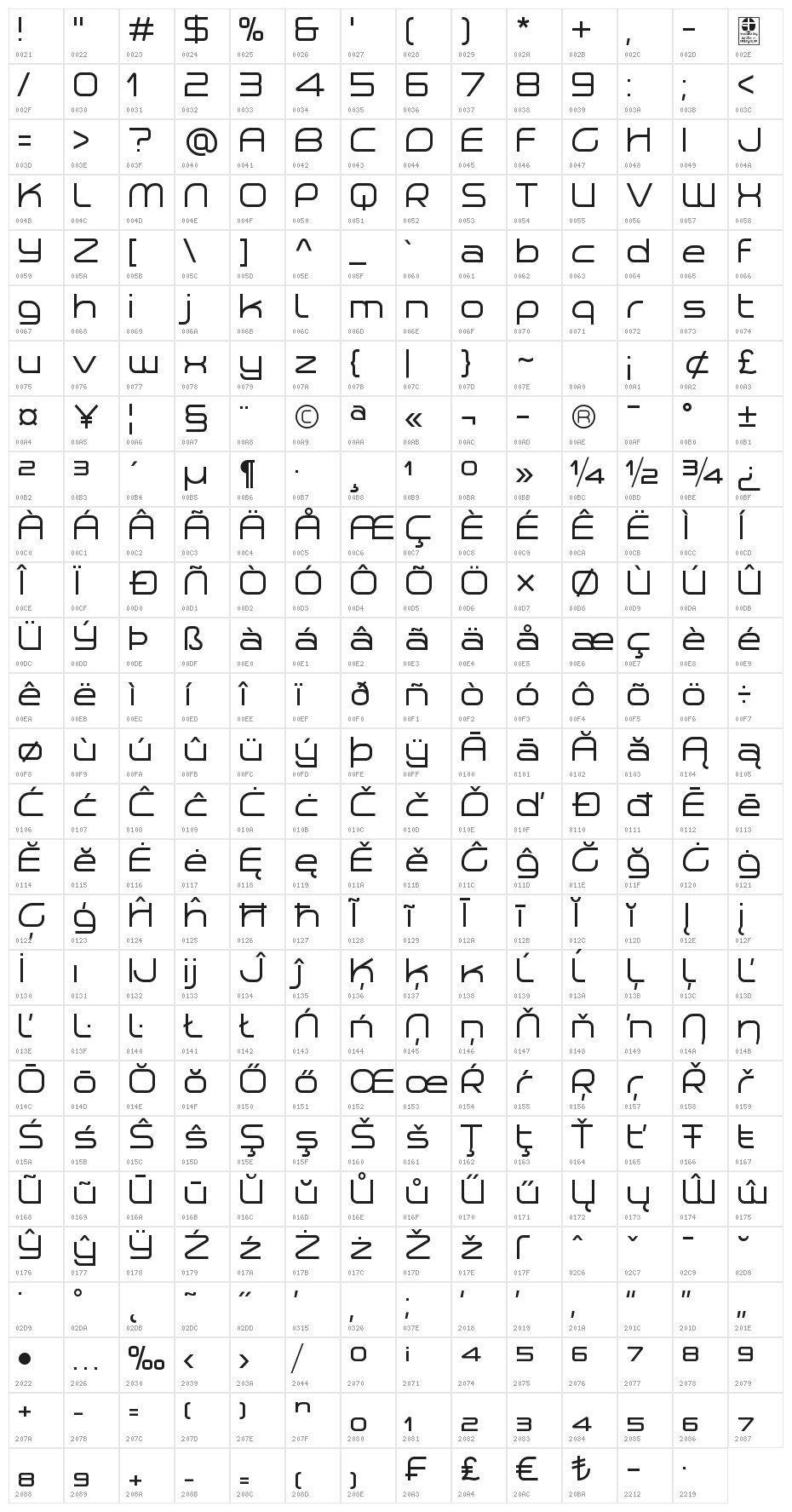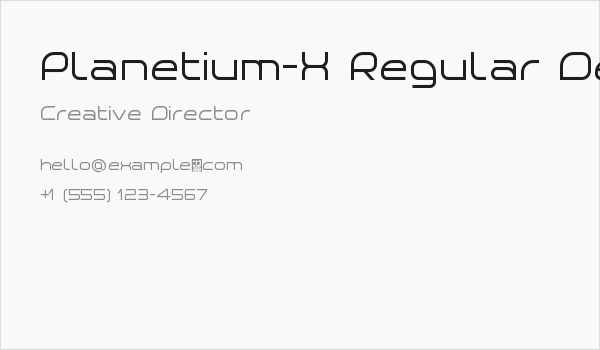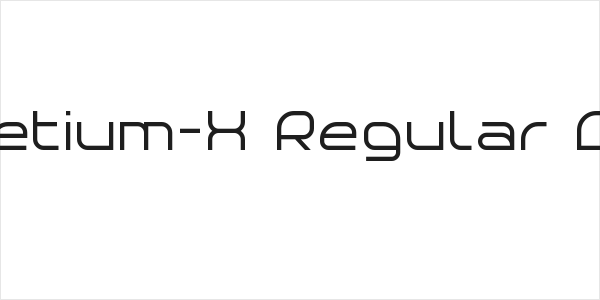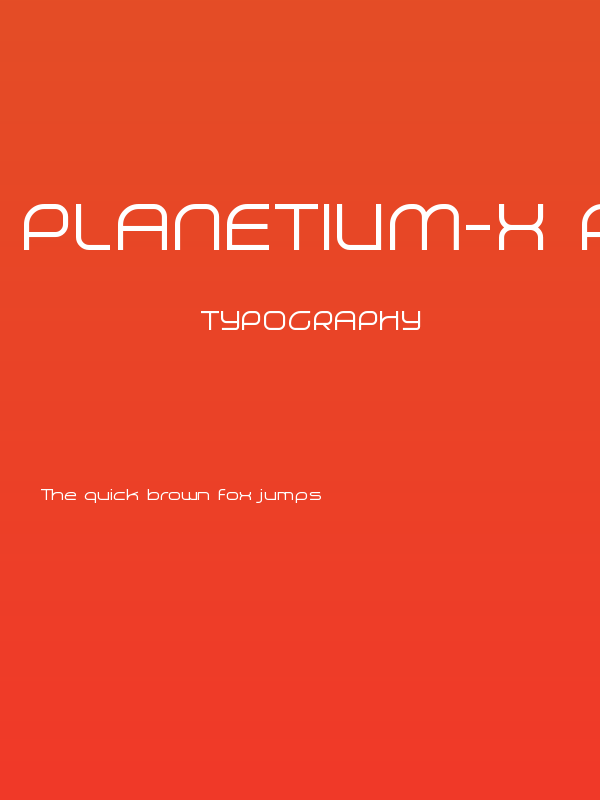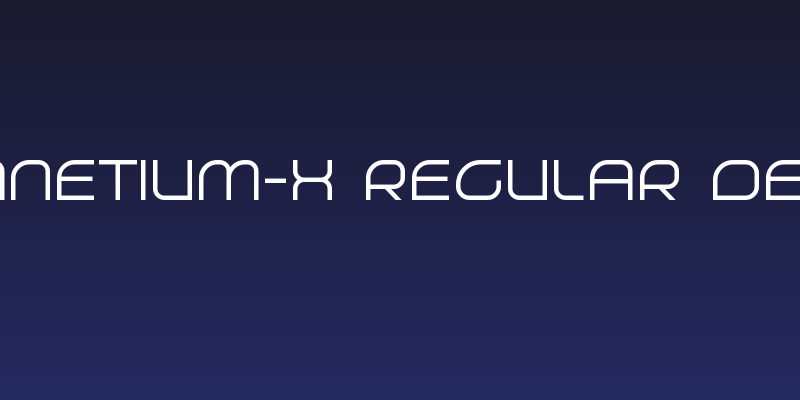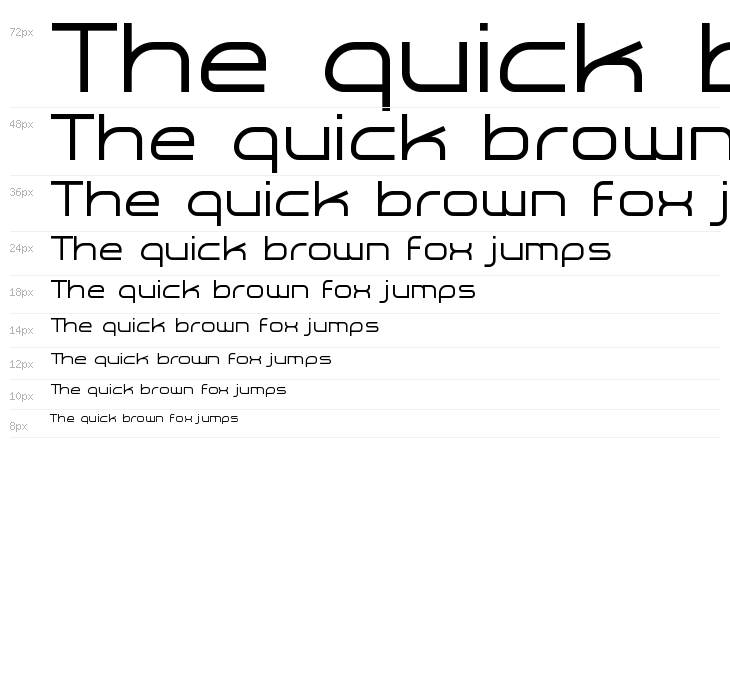
Planetium-X Regular Demo Font
Planetium-X Regular Demo Description
This font features a sleek, futuristic design with clean lines and a geometric structure. The characters are uniform in height, providing a consistent and modern appearance. The rounded edges and open counters give it a friendly and approachable feel, while maintaining a sense of precision and clarity. The font is highly legible, making it suitable for various digital applications. Its minimalist style is complemented by a balanced weight distribution, ensuring readability across different sizes.
| Use Case | Headlines, Digital interfaces, Branding |
| Proposed Projects | Ideal for tech branding, digital interfaces, modern advertising, and sci-fi themed projects. |